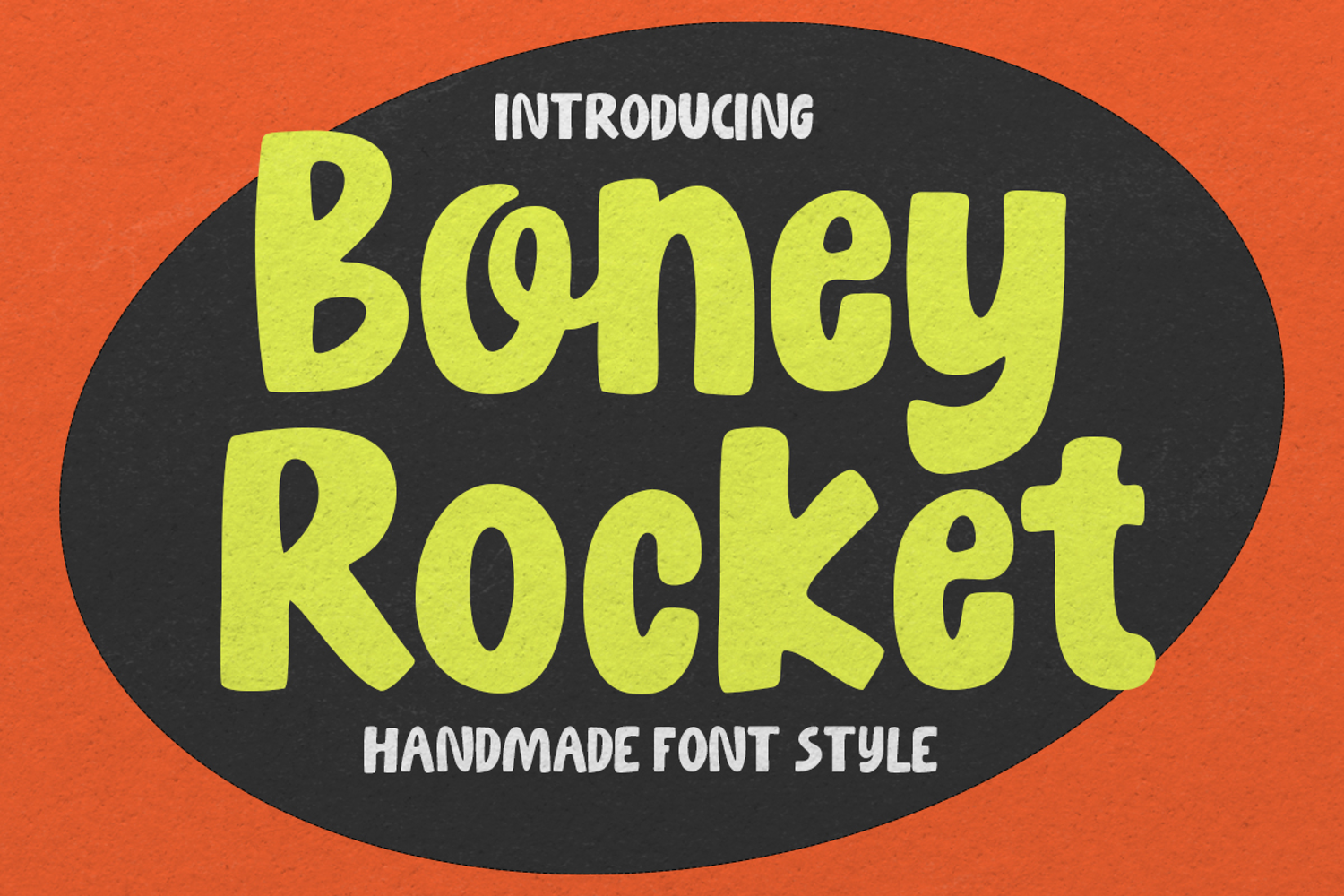
Boney Rocket
Boney Rocket Italic
Boney Rocket
Boney Rocket Outline
Boney Rocket is a bold, playful, and handcrafted display font designed to bring a sense of fun and personality to your creative projects. With its thick strokes, rounded edges, and quirky letterforms, this font exudes a retro charm while maintaining a contemporary, approachable feel.